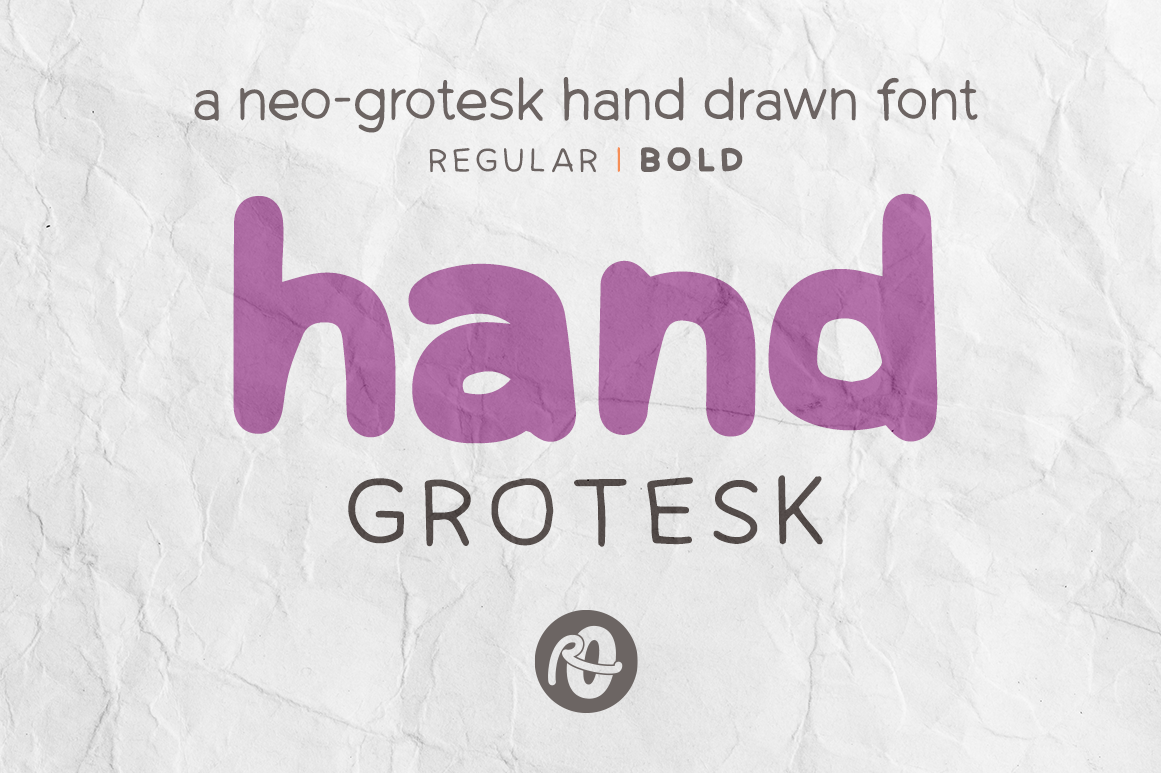
Hand Grotesk: hand drawn font
Hand Grotesk is a hand drawn font in a neo-grotesk style. It’s fun, with structure. Its look and function work well for branding, packaging & editorial design.
Regular and bold.